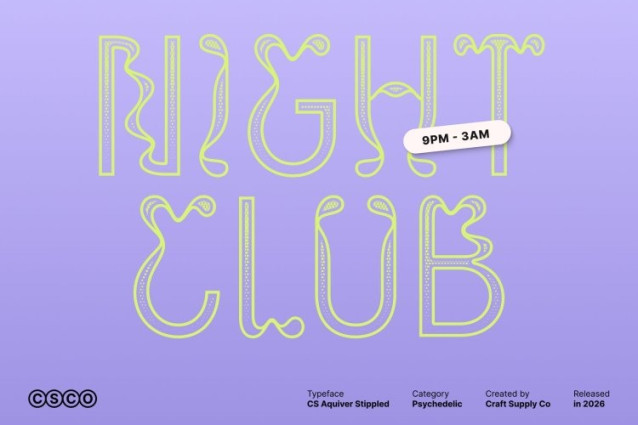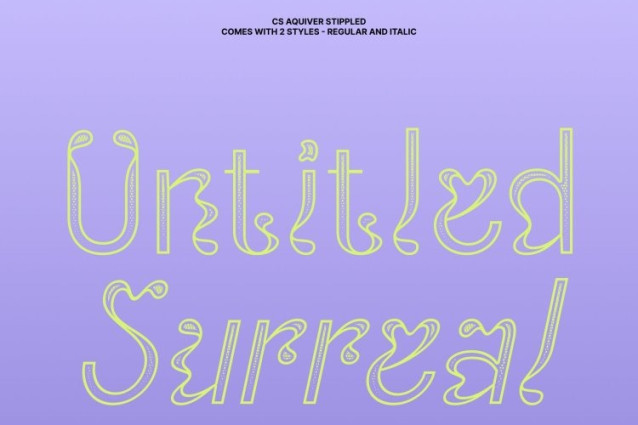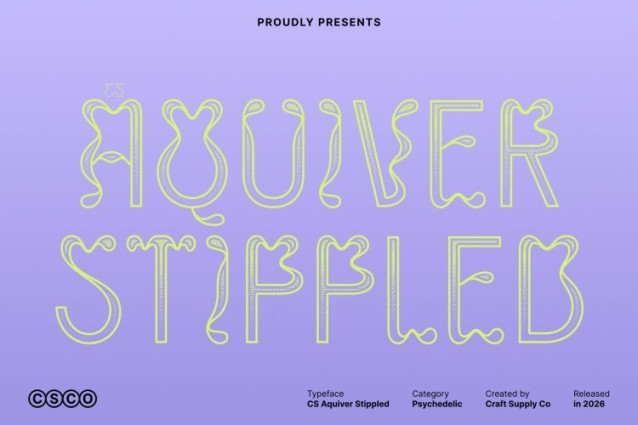
CS Aquiver Stippled Font
CS Aquiver Stippled Font – This is a psychedelic display font that bursts with vibrant energy and bold visual character. Its swirling, curved letterforms and dynamic distortions create a trippy and expressive appearance inspired by classic psychedelic art and experimental typography. Enhanced with a dense stippled texture, each letter gains a unique dotted surface that adds artistic depth and handcrafted character.
Unique Artistic Appeal with Stippled Detail
The combination of unconventional shapes and stippled dotwork gives this font a highly artistic and distinctive personality. The dotted texture resembles traditional stippling or ink-dot illustration techniques, enriching the psychedelic curves with subtle visual complexity. This textured treatment adds a vintage, handmade aesthetic while reinforcing the font’s creative and experimental spirit.
Perfect for Creative and Experimental Designs
This is ideal for music posters, festival branding, album covers, and experimental graphic design. Its bold forms and textured surfaces create strong visual interest, making headlines and titles feel lively, expressive, and unforgettable.
Playful Energy with Vintage Psychedelic Charm
The trippy rhythm of the letterforms combined with the stippled texture brings a playful yet nostalgic atmosphere reminiscent of retro psychedelic prints and hand-crafted poster art. Whether used for artistic promotions, creative branding, or eye-catching editorial layouts, delivers a dynamic and imaginative typographic presence.